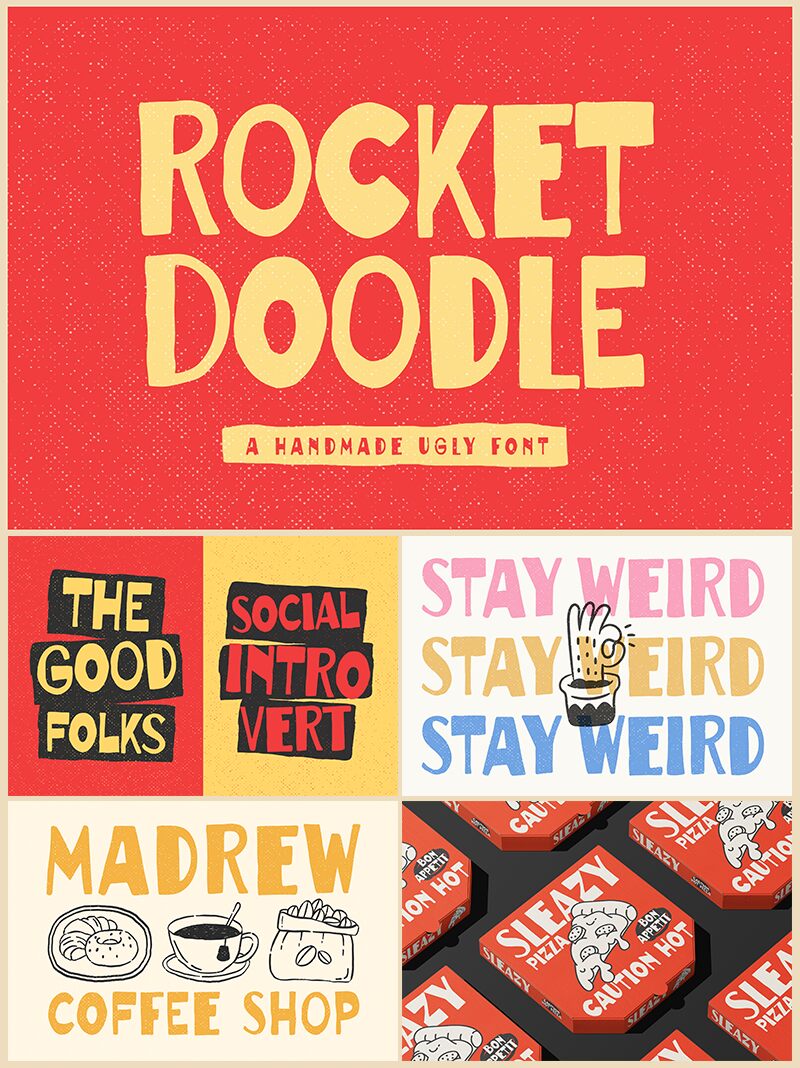
Rocket Doodle font by Blankids is a free font that brings a quirky, hand-drawn style to the table. With its whimsical and informal appeal, this font adds a lively and expressive touch to any project. Perfect for modern applications in branding or creative endeavors, it’s a great choice for those seeking a casual yet bold visual presence.
Ideal uses include invitations, greeting cards, packaging, posters, social media graphics, t-shirt designs, website headers, logos, book covers, and event flyers. Its artistic and contemporary vibe makes it suitable for both personal and creative professional projects.